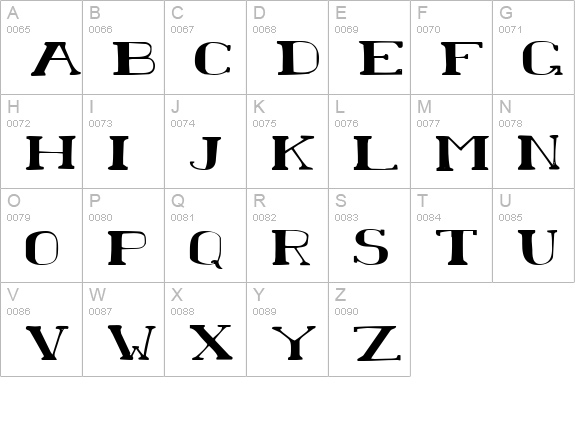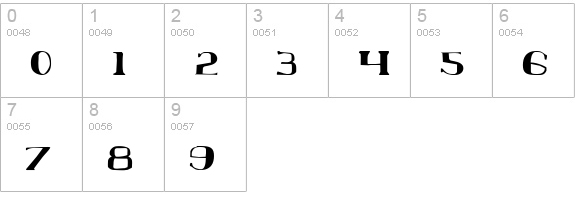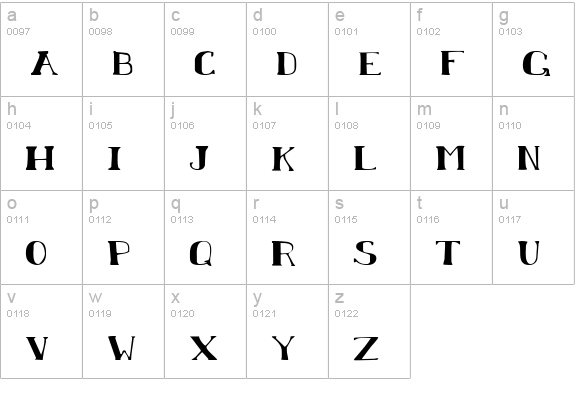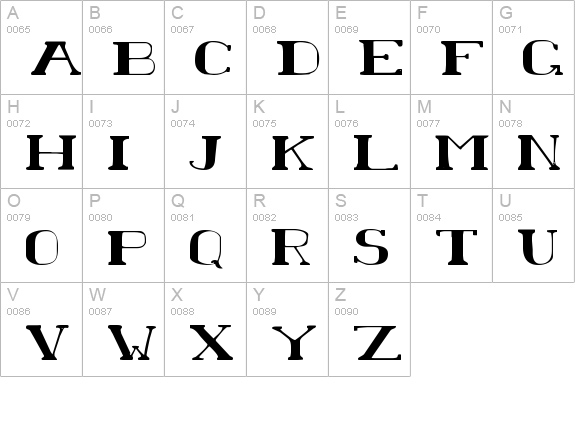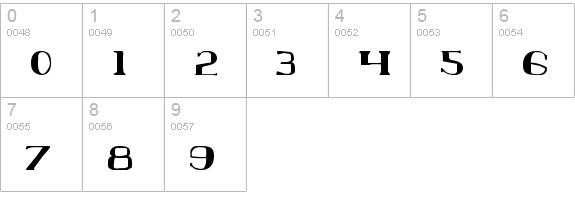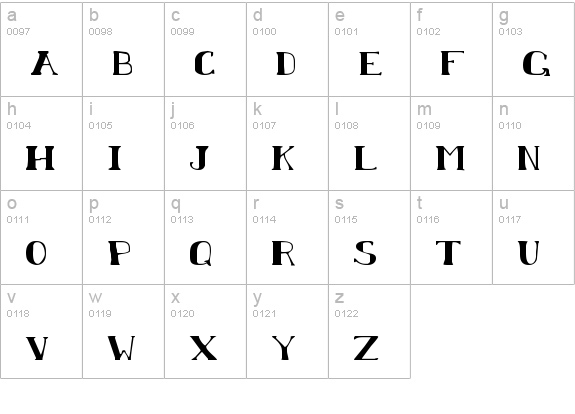
Chardin Doihle Expanded is a distinctive, extended-width variant in the Chardin typeface family \xE2\x80\x94 well suited to design and typography projects.
Chardin Doihle Expanded is a modern and elegant font that exudes sophistication and style. Its sleek lines and elongated letterforms make it perfect for creating eye-catching headings and titles. This versatile typeface is ideal for a wide range of design projects, from branding and packaging to posters and invitations. What sets Chardin Doihle Expanded apart is its unique combination of classic elegance and contemporary flair. The font strikes the perfect balance between tradition and innovation, making it a great choice for designers looking to make a statement. The best part is that Chardin Doihle Expanded is available for free download at FontsMarket.com. This means that you can start using this beautiful font in your projects right away, without having to worry about any licensing fees or restrictions. Don't miss out on this opportunity to add a touch of sophistication to your designs with Chardin Doihle Expanded!